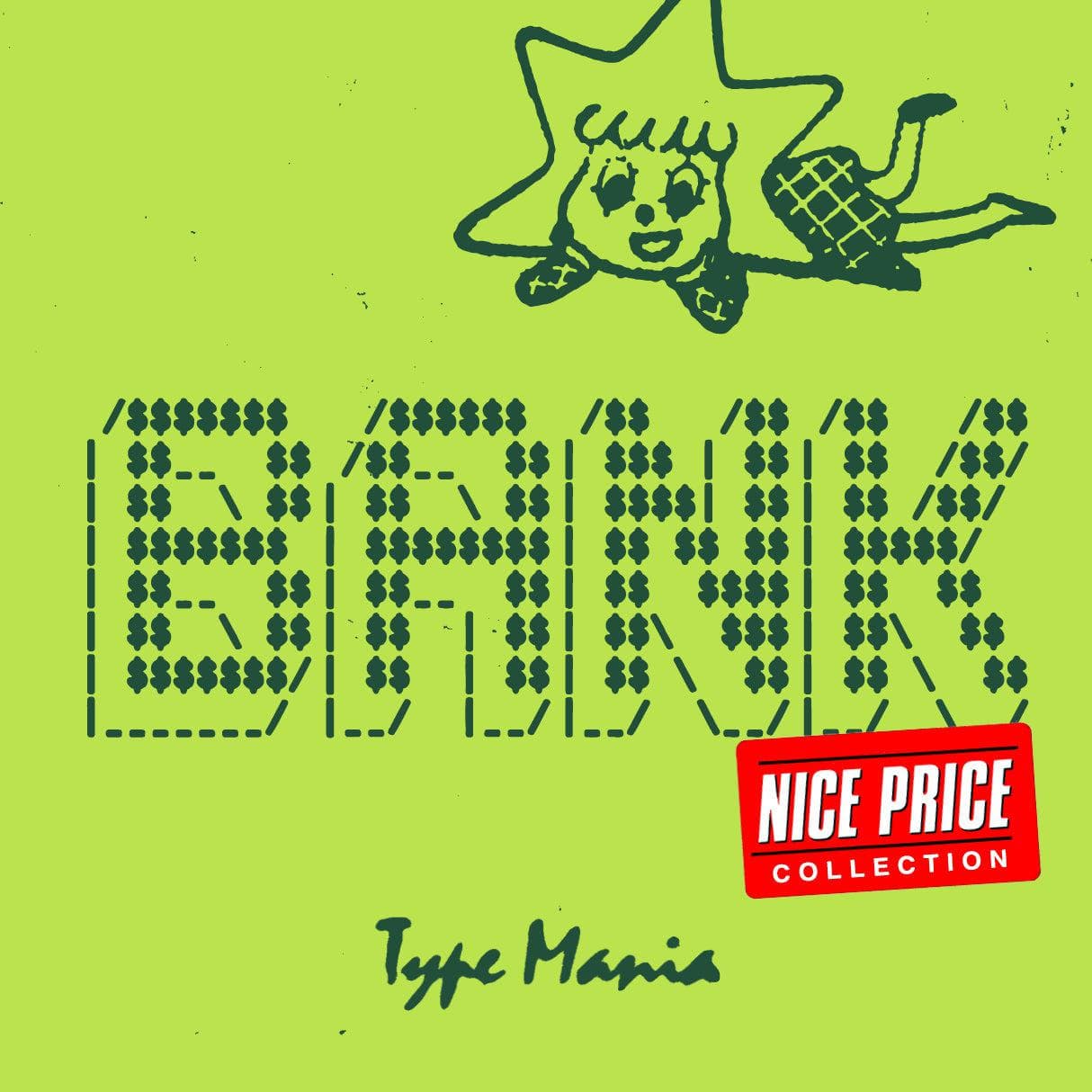
<p>Introducing <strong>Bank TM</strong>, the font that stays breaded 🤑🤑 Good for flyers, posters, stamped right on the label of a bootleg 12"... Sky's the limit!</p> <p><strong>Zip includes</strong></p> <ul> <li>OTF file</li> <li>TTF file</li> <li>WOFF2 file</li> </ul> <p><strong>Languages</strong></p> <ul> <li>Basic Latin</li> <li>Western European</li> <li>Euro</li> <li>Central European</li> <li>Pan African Latin</li> </ul> <p><em>Graphic Design is Easy (with Type Mania)®</em></p>